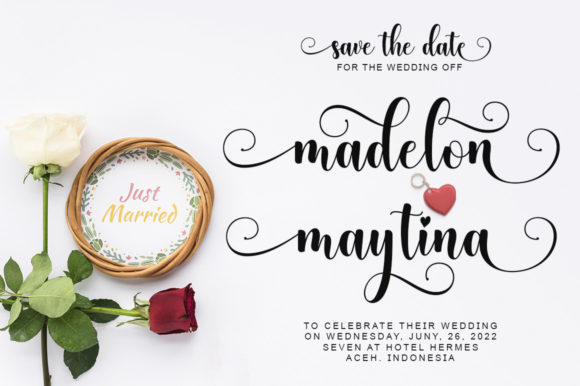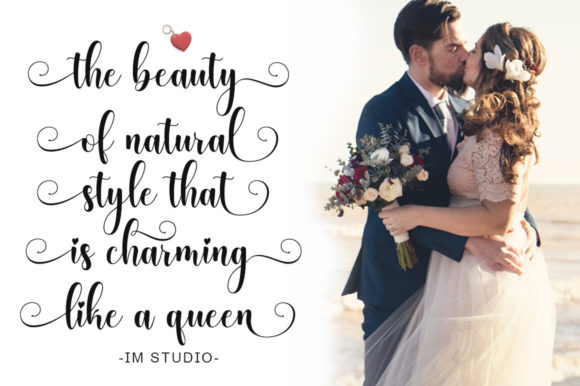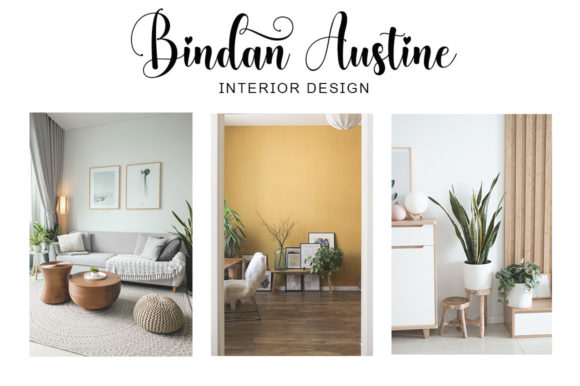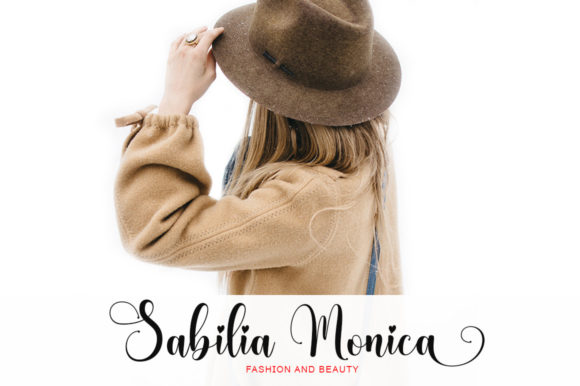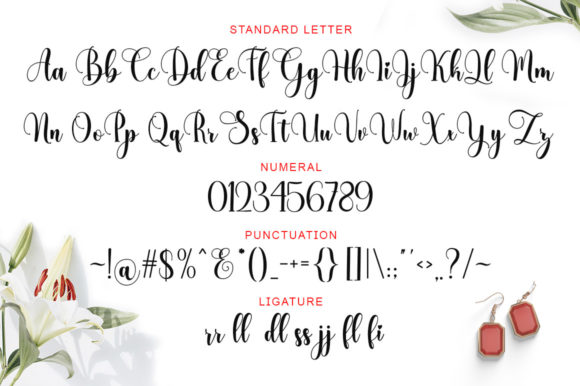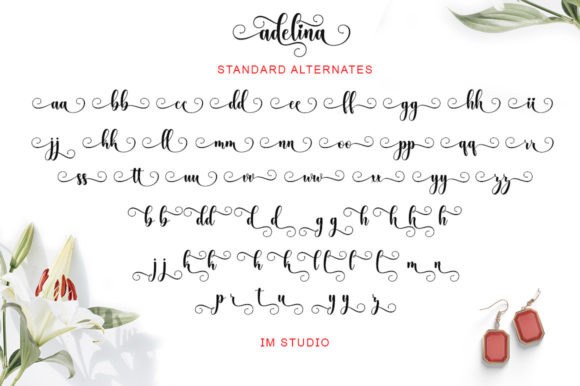
Introducing Adelina Script Font: Elevate Your Designs with Classic Elegance
Are you a designer or crafter looking for a font that exudes classic elegance and sophistication? Look no further than Adelina Script Font. This beautiful, subtle handwritten script font is perfect for adding a touch of refinement to your designs, whether you’re creating greeting cards, wedding invitations, birthday cards, or any other project that requires a personal touch.
What is Adelina Script Font?
Adelina Script Font is a stunning example of classic calligraphy, with flowing lines and delicate curves that evoke a sense of nostalgia and romance. This font is designed to mimic the look of handwritten calligraphy, making it perfect for creating beautiful, one-of-a-kind designs that stand out from the crowd.
Key Features of Adelina Script Font
- Classic Calligraphy Style: Adelina Script Font boasts a classic calligraphy style that is both timeless and elegant.
- PUA Encoded: This font is PUA (Private Use Area) encoded, which means you can access all glyphs and swashes with ease, giving you complete creative control over your designs.
- Subtle Handwritten Look: The subtle handwritten look of Adelina Script Font makes it perfect for creating designs that feel personal and unique.
- Versatile: Whether you’re designing greeting cards, wedding invitations, birthday cards, or any other type of project, Adelina Script Font is the perfect choice.
Why Choose Adelina Script Font?
There are many script fonts on the market, but Adelina Script Font stands out from the rest. Here are just a few reasons why:
- Elegant and Sophisticated: Adelina Script Font is the epitome of elegance and sophistication, making it perfect for designs that require a touch of refinement.
- Easy to Use: With its PUA encoding, Adelina Script Font is easy to use, even for those with limited design experience.
- Unique and Personal: The subtle handwritten look of Adelina Script Font gives your designs a unique and personal touch that sets them apart from the rest.
Adelina Script Font is perfect for designers and crafters who want to add a touch of elegance and sophistication to their projects. Whether you’re creating:
- Greeting cards for special occasions
- Birthday cards and gift tags
- Personalized gifts and crafts
Adelina Script Font is the perfect choice. Its versatility and elegance make it suitable for a wide range of projects, and its ease of use makes it accessible to designers and crafters of all skill levels.
Tips for Using Adelina Script Font
Here are a few tips for getting the most out of Adelina Script Font:
- Experiment with Different Sizes: Adelina Script Font looks beautiful in a variety of sizes, so don’t be afraid to experiment and find the perfect size for your project.
- Pair with Other Fonts: Adelina Script Font pairs beautifully with other fonts, so try pairing it with a bold font for a striking contrast.
- Use Swashes and Glyphs: With its PUA encoding, Adelina Script Font comes with a range of swashes and glyphs that can add an extra touch of elegance to your designs.
Adelina Script Font is a beautiful, elegant, and sophisticated font that is perfect for designers and crafters who want to add a touch of refinement to their projects. With its classic calligraphy style, PUA encoding, and subtle handwritten look, Adelina Script Font is the perfect choice for creating unique and personal designs that stand out from the crowd.